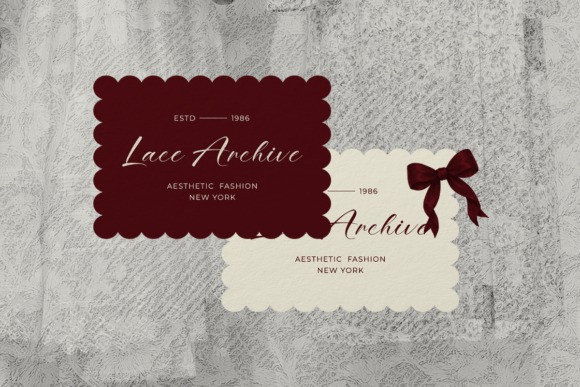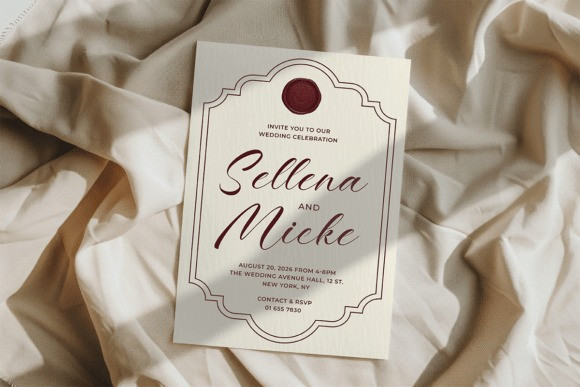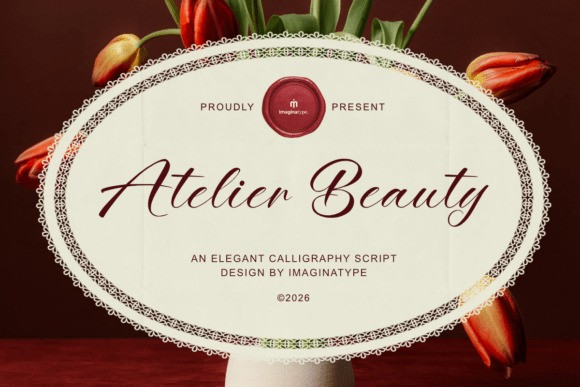
Atelier Beauty Script Font
Atelier Beauty Script Font a refined calligraphy script typeface that effortlessly brings a touch of romance and luxury to your creative projects.This sophisticated script is characterized by its graceful, flowing strokes and high-contrast letterforms, lending it an authentic, artisanal feel reminiscent of classic hand-lettered invitations and high-end boutique branding. The Atelier Beauty font shines as a delicate yet impactful display typeface, capturing hearts with its beautifully crafted curves and smooth, natural connections.
It’s perfect for wedding invitations, luxury fashion branding, elegant restaurant menus, aesthetic packaging, or any project that requires a classy, handwritten statement.
Described as an “elegant calligraphy script,” Atelier Beauty manages to be both classic and contemporary, offering a perfect blend of artisanal charm and pristine readability. Its unique ability to evoke a sense of soft curation and a high-end lifestyle makes this calligraphy font an indispensable tool for designers seeking a sophisticated, premium touch.
Perfect for boutique logos, editorial headers, personalized stationery, event typography, and any romance-themed project, Atelier Beauty brings a graceful and inviting atmosphere to every design.